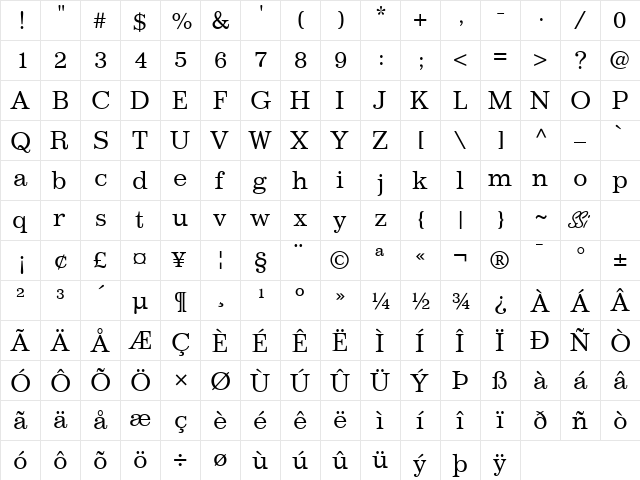
Classic SSi Regular
Design Context for Classic SSi Typeface
Classic SSi has the warm character of retro typography — evoking diners, record sleeves, and the golden age of print advertising.
Font Pairing: Combine Classic SSi with a simple slab or neutral sans — period-accurate companions reinforce the vintage feel without competing for attention.
Pro Tip: Lean into Classic SSi's period character by pairing it with aged paper textures, muted colour palettes, and vintage illustration styles.